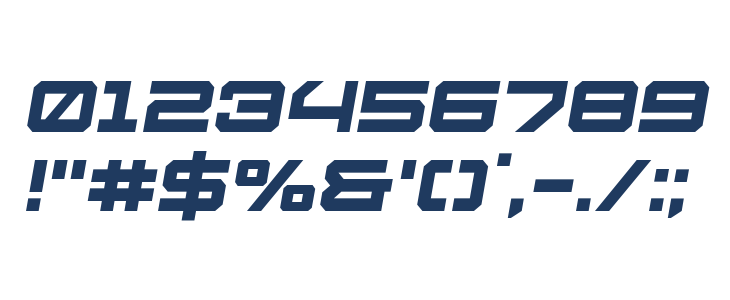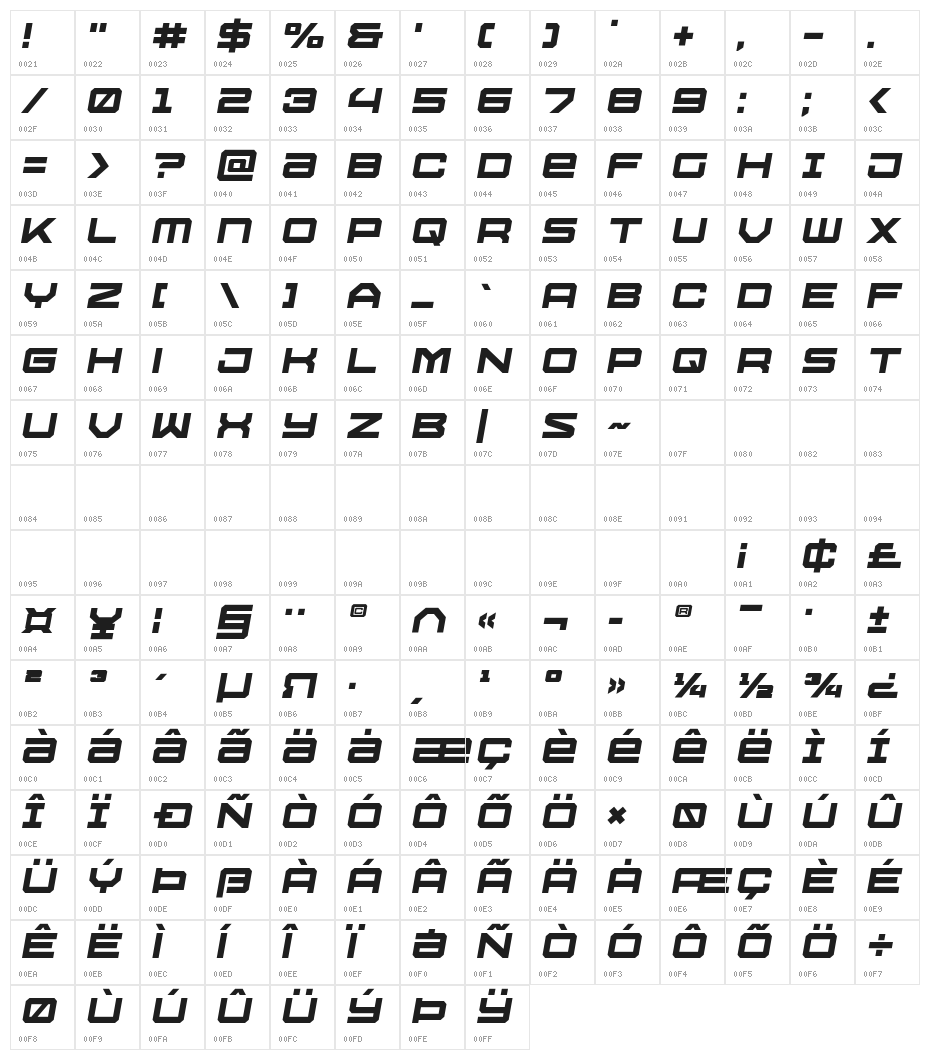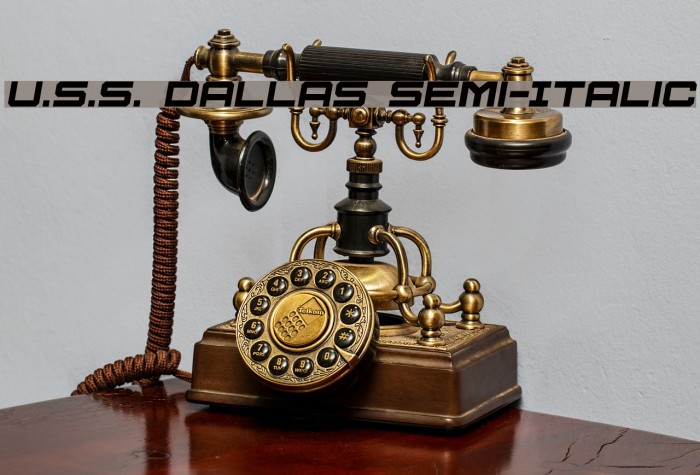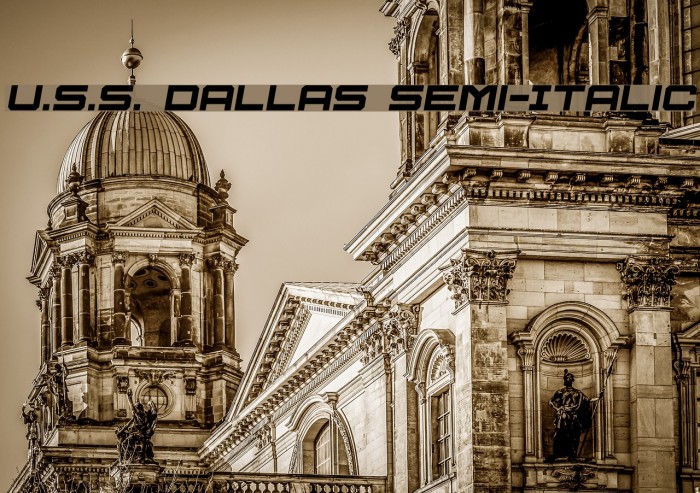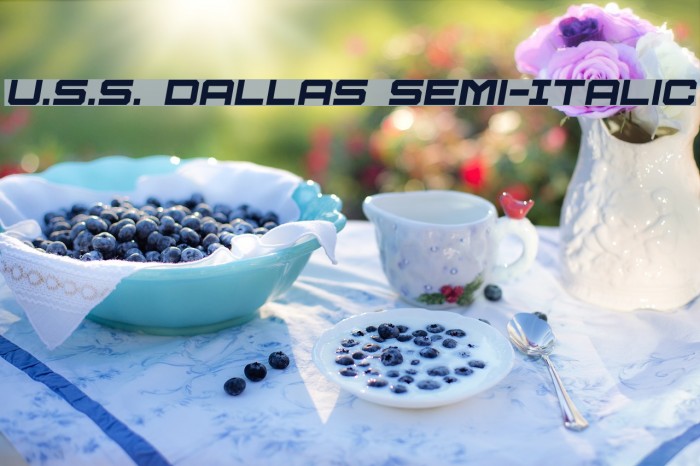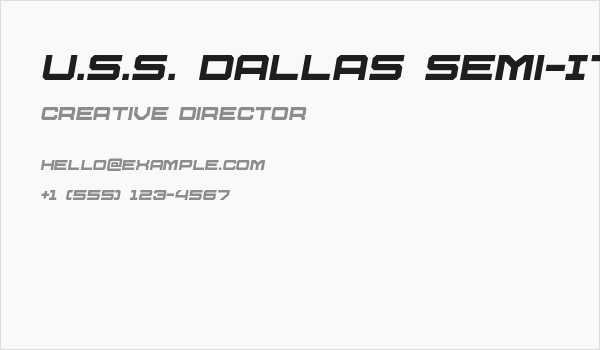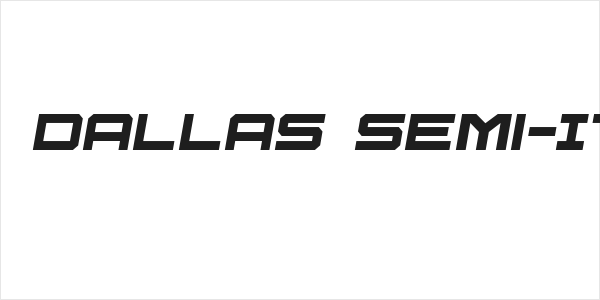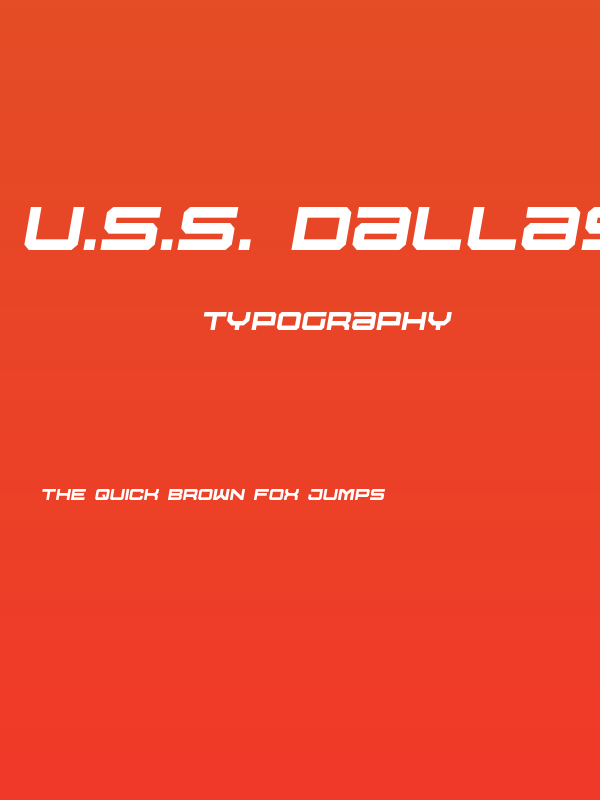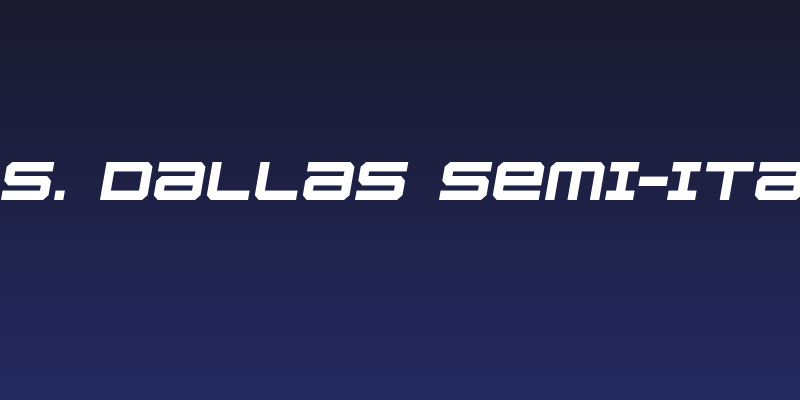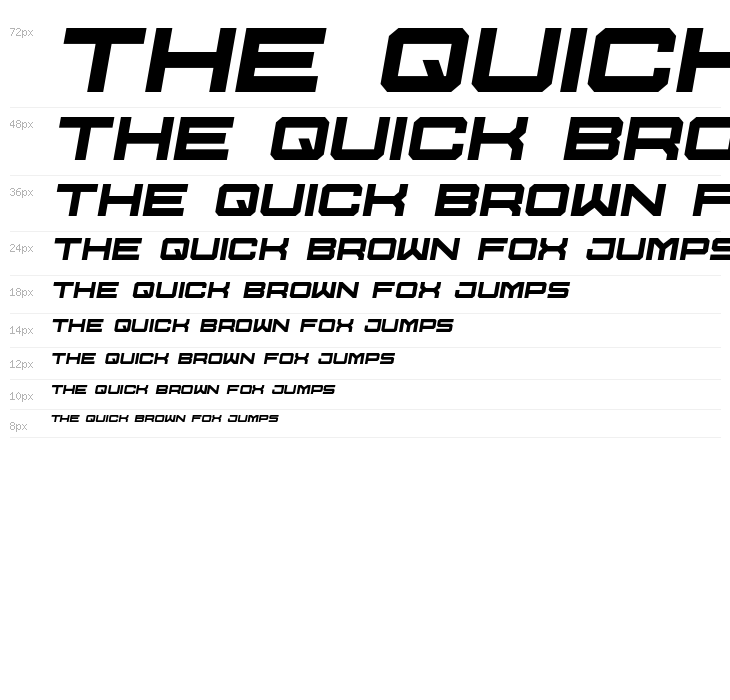
U.S.S. Dallas Semi-Italic Font
U.S.S. Dallas Semi-Italic Description
This font features a futuristic and angular design, characterized by its semi-italic slant and bold geometric shapes. The letters are crafted with precision, offering a modern and sleek appearance. The uppercase and lowercase characters maintain a consistent style, with sharp edges and a slightly condensed form. The numerals and special characters follow the same aesthetic, ensuring uniformity across all glyphs. This font's unique style makes it suitable for projects that require a contemporary and tech-inspired look.
Proposed ProjectsIdeal for technology branding, sci-fi posters, video game titles, and modern advertising.